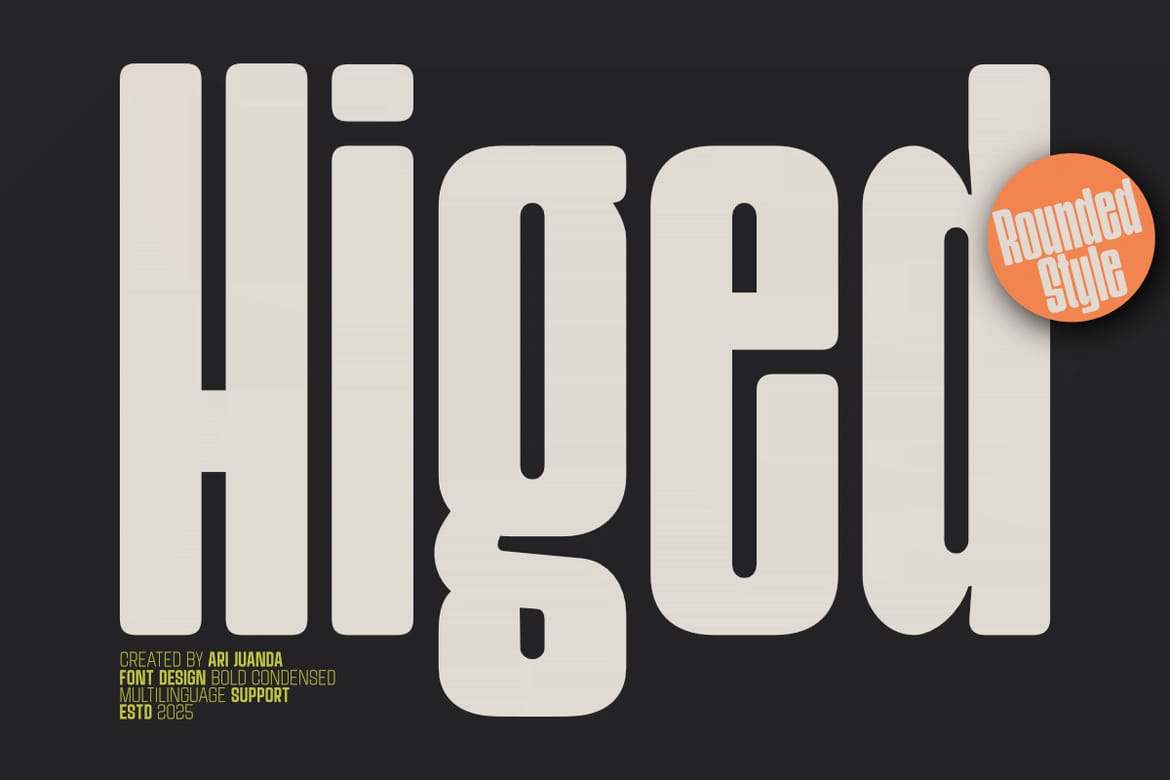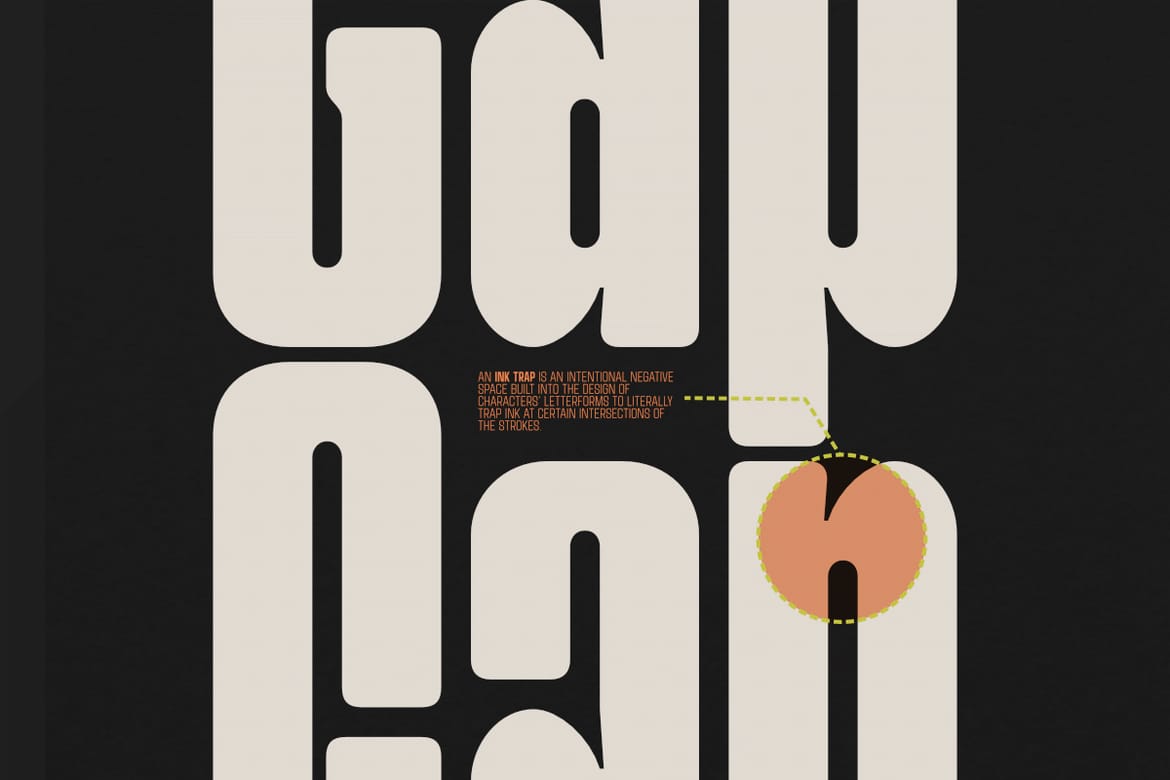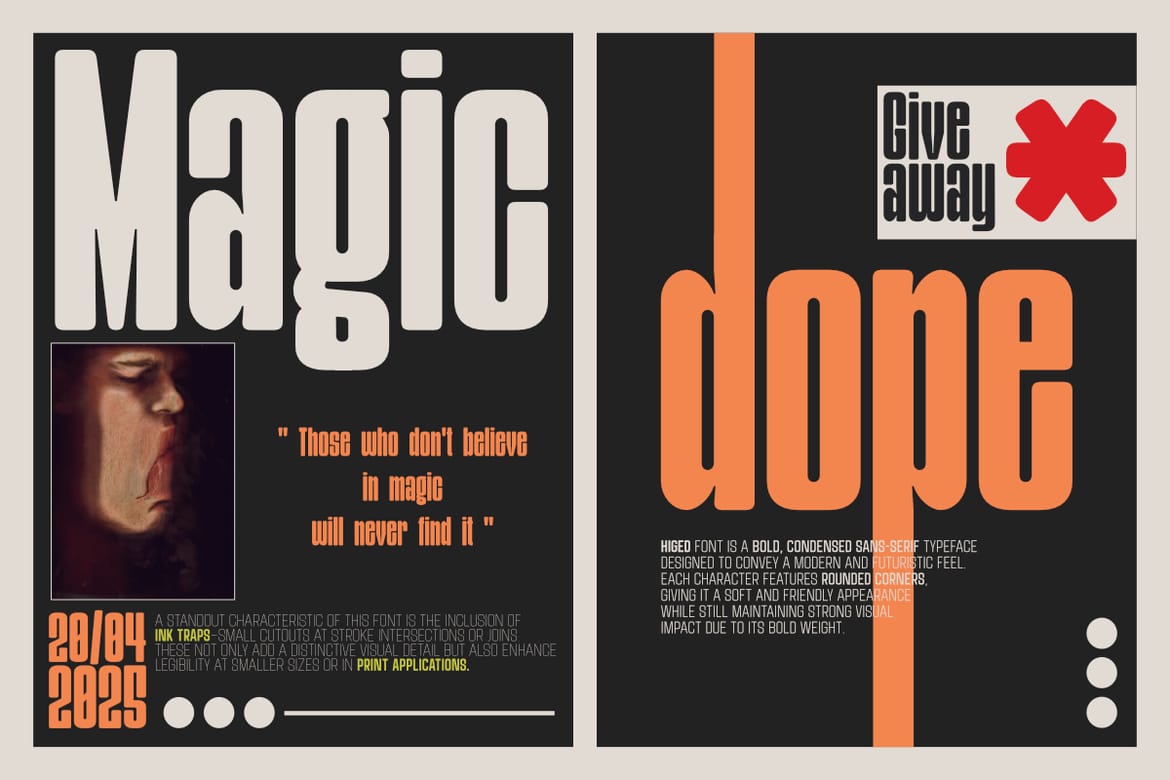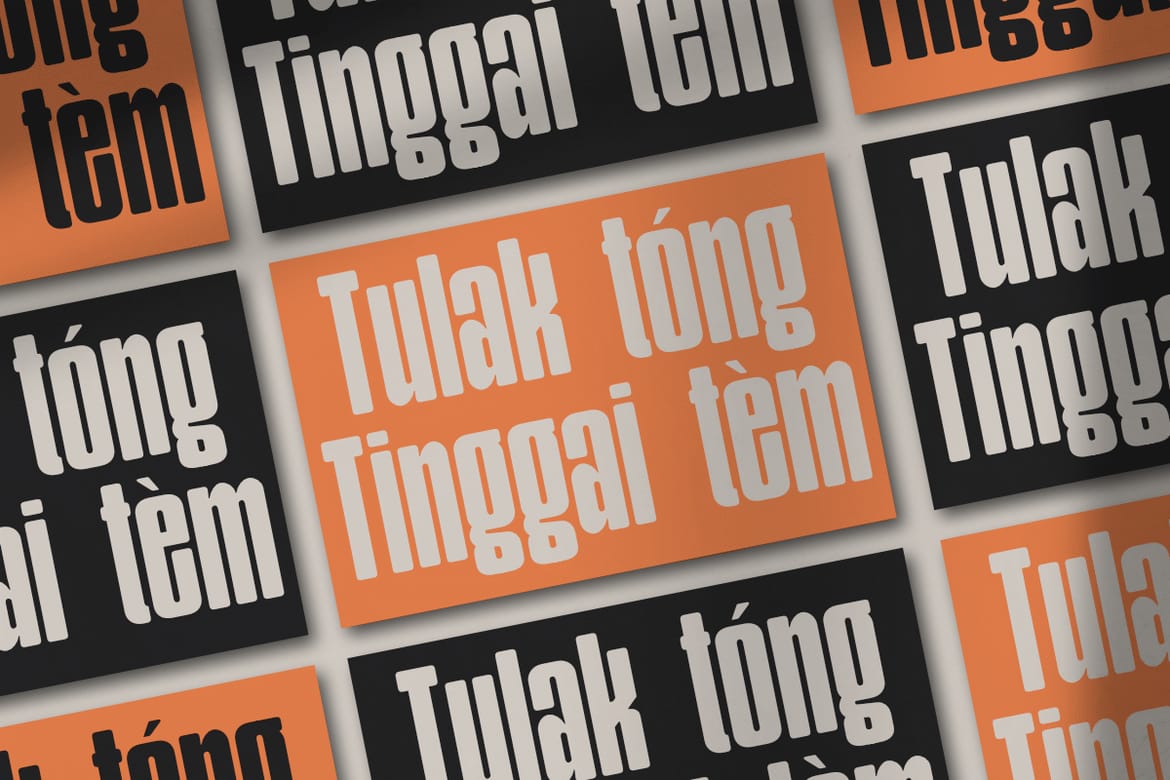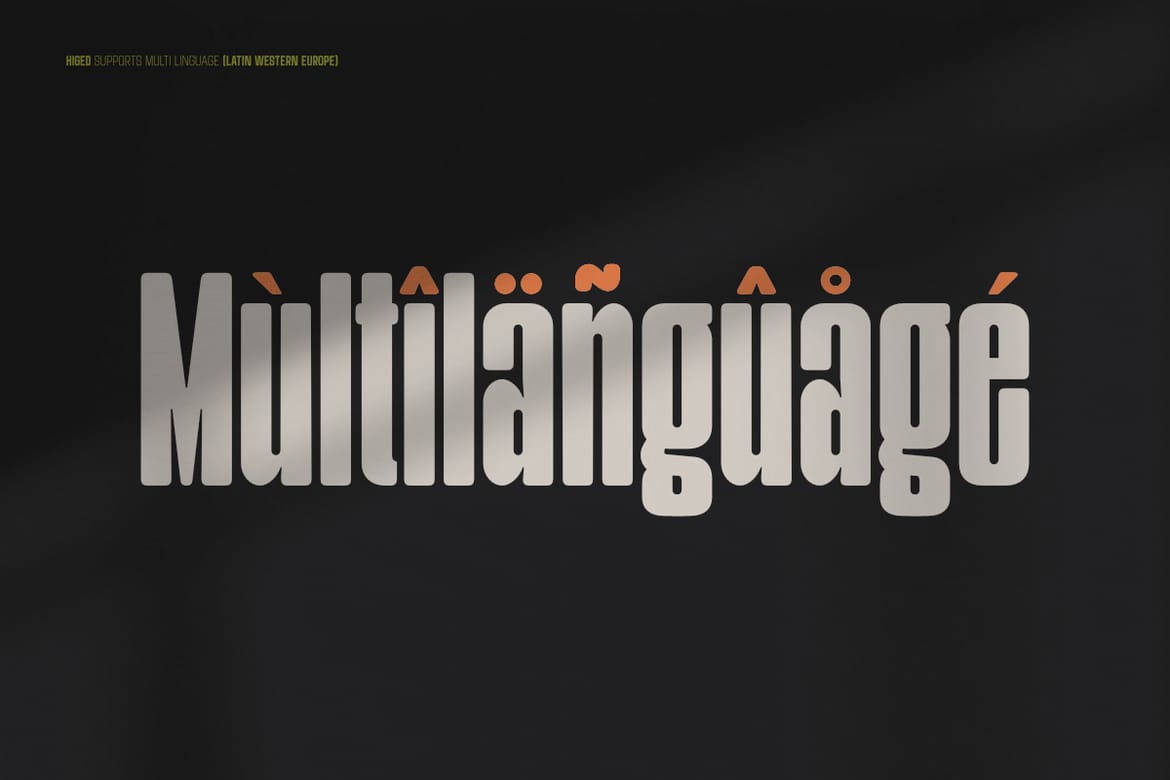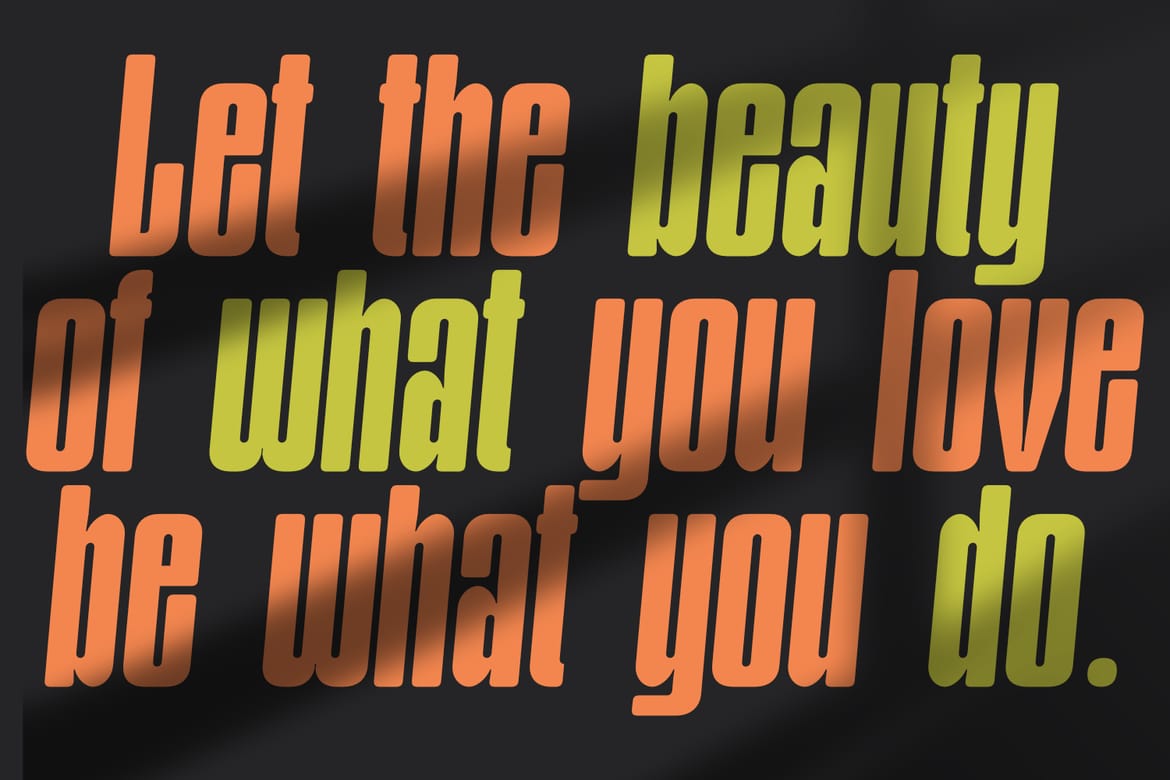
Higed font is a bold, condensed sans-serif typeface designed to convey a modern and futuristic feel. Each character features rounded corners, giving it a soft and friendly appearance while still maintaining strong visual impact due to its bold weight.
A standout characteristic of this font is the inclusion of ink traps—small cutouts at stroke intersections or joins. These not only add a distinctive visual detail but also enhance legibility at smaller sizes or in print applications.
This typeface is ideal for headlines, branding, or modern editorial design that seeks a balance between strong character and approachable form.